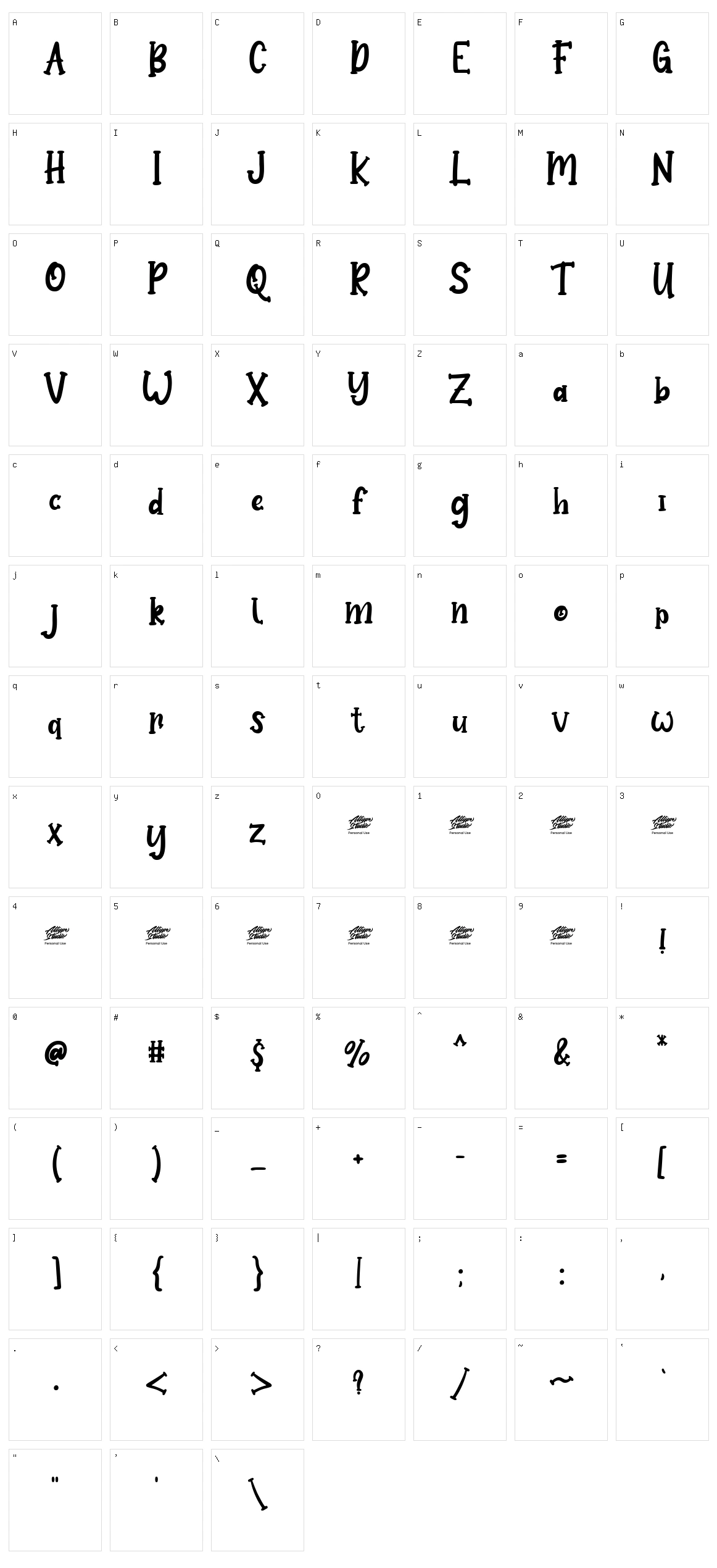
The free font Baby Snowman is carefully designed by Attype Studio, showcasing a thoughtful balance of creativity and usability and falls under the Christmas font style. When you download the ZIP file, it contains only 1017.85 KB of font files, making it lightweight and quick to download. Please review the license details below to understand permitted usage and distribution rights. If license information is not available, we recommend using this font for personal projects only or contacting the author directly for commercial usage permissions.